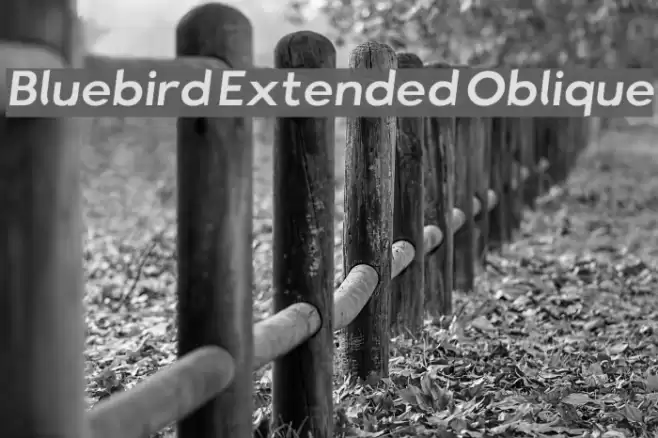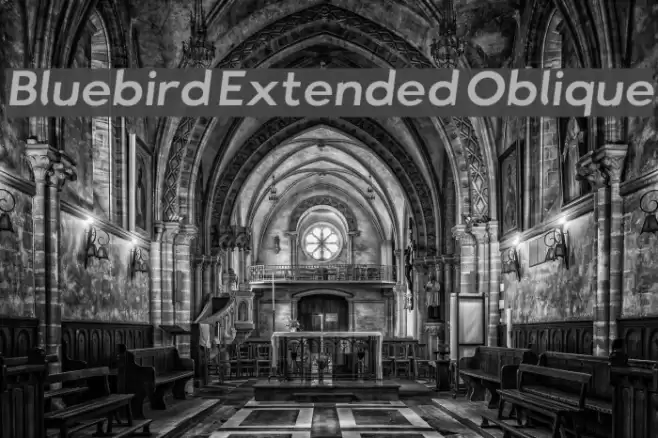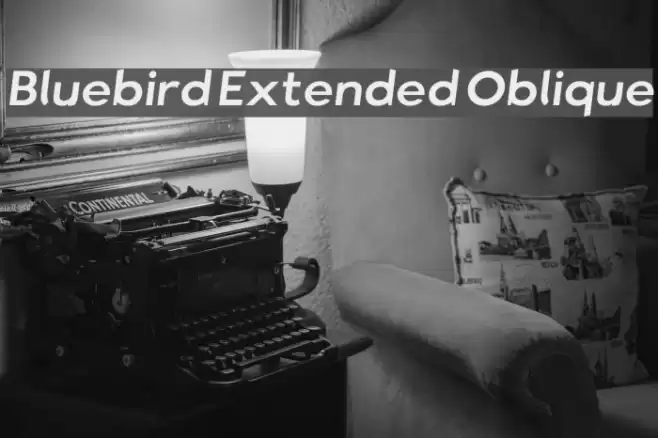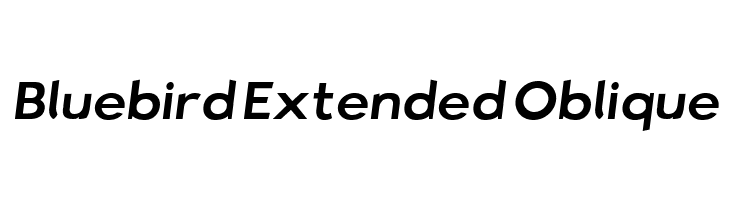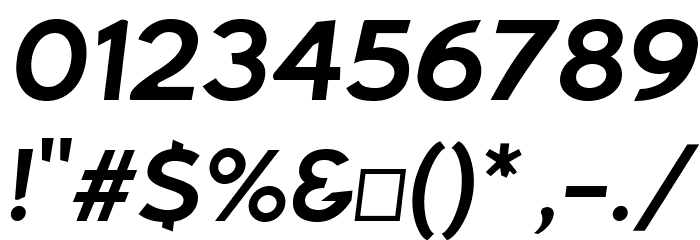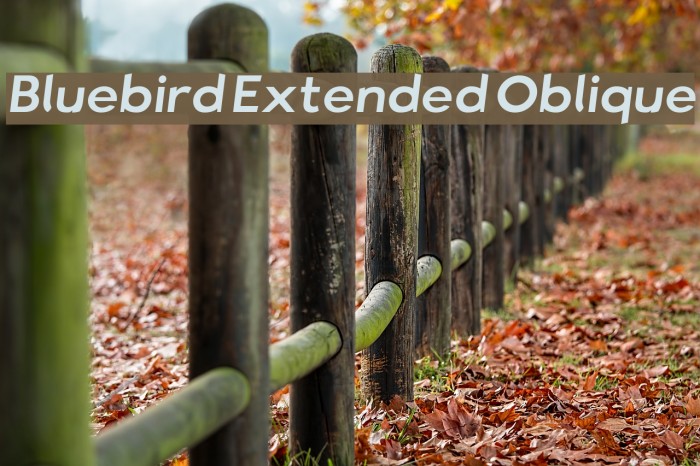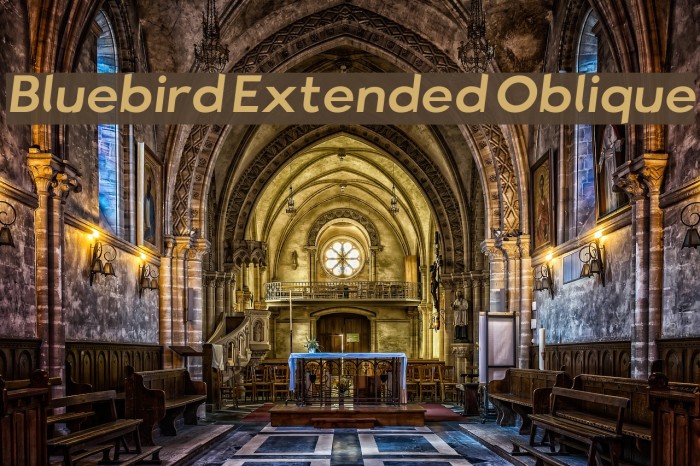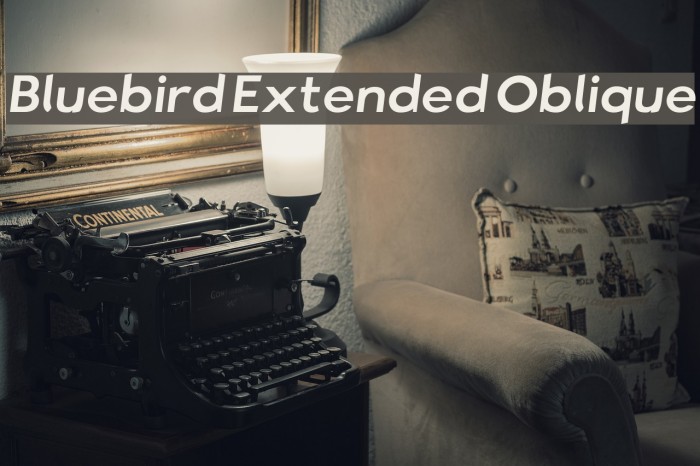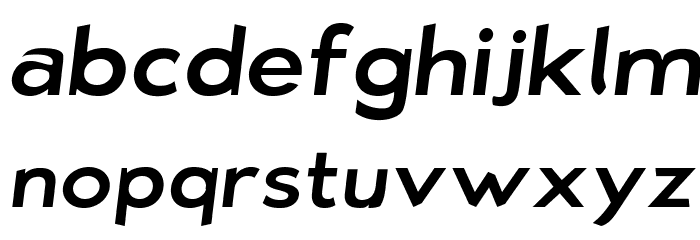
Bluebird Extended Oblique
This font features a sleek and modern design with an oblique style, giving it a dynamic and forward-leaning appearance. The characters are extended, providing a sense of spaciousness and readability. The strokes are consistent in weight, offering a uniform look across all characters. The uppercase and lowercase letters maintain a harmonious balance, while the numerals and special characters are clearly defined, making them suitable for various applications. The overall aesthetic is clean and professional, ideal for contemporary design projects.
A modern, oblique font with extended characters and a sleek, professional look.
- Proposed Projects: Ideal for branding, advertising, and editorial design projects that require a modern and dynamic appearance.
- Width: Expanded
- Use Case: Headlines, Logos, Advertising